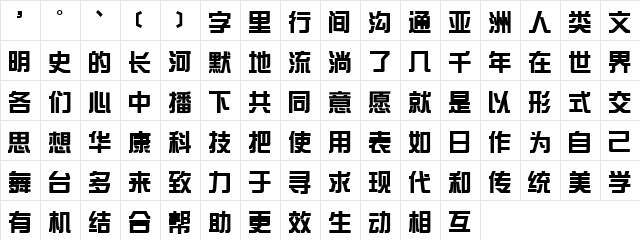
DFZongYiBold1BGB Regular
Design Context for DFZongYiBold1BGB Typeface
DFZongYiBold1BGB takes a measured approach to typography — its balanced proportions and neutral character make it a reliable workhorse for both digital and print work. The heavy weight commands attention and anchors typographic hierarchies.